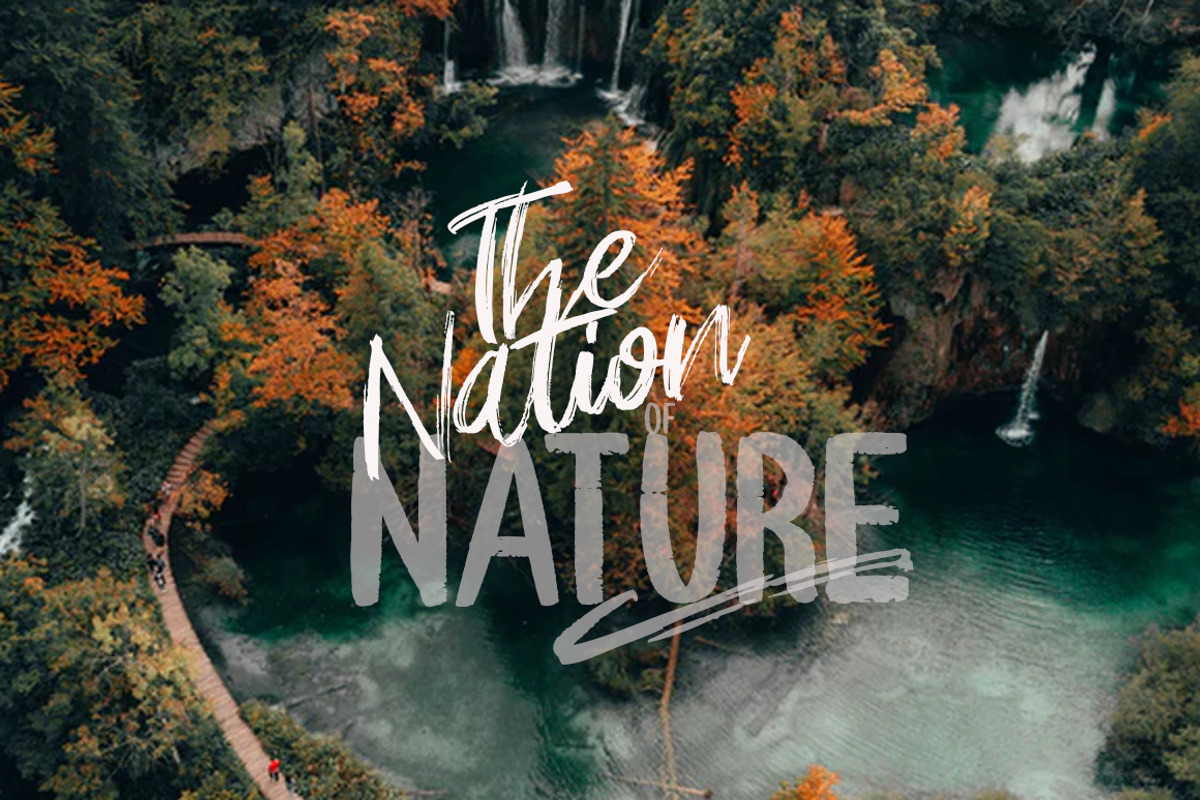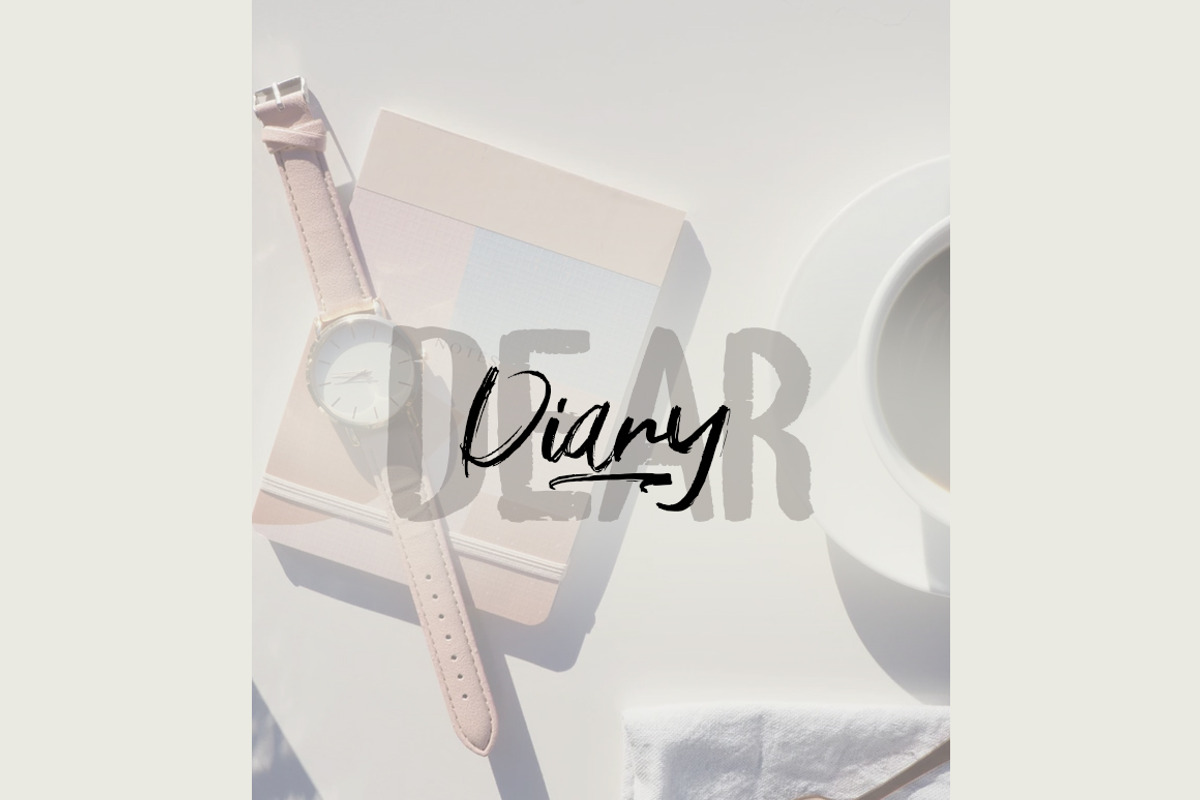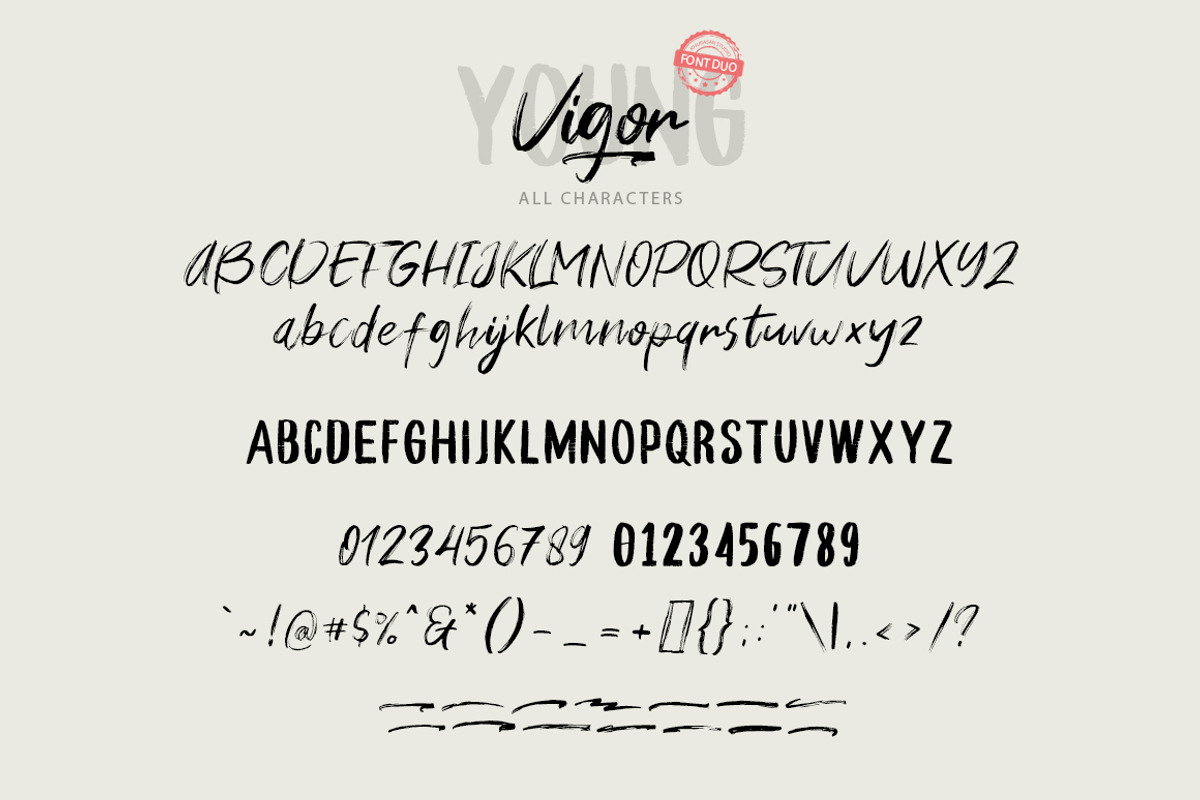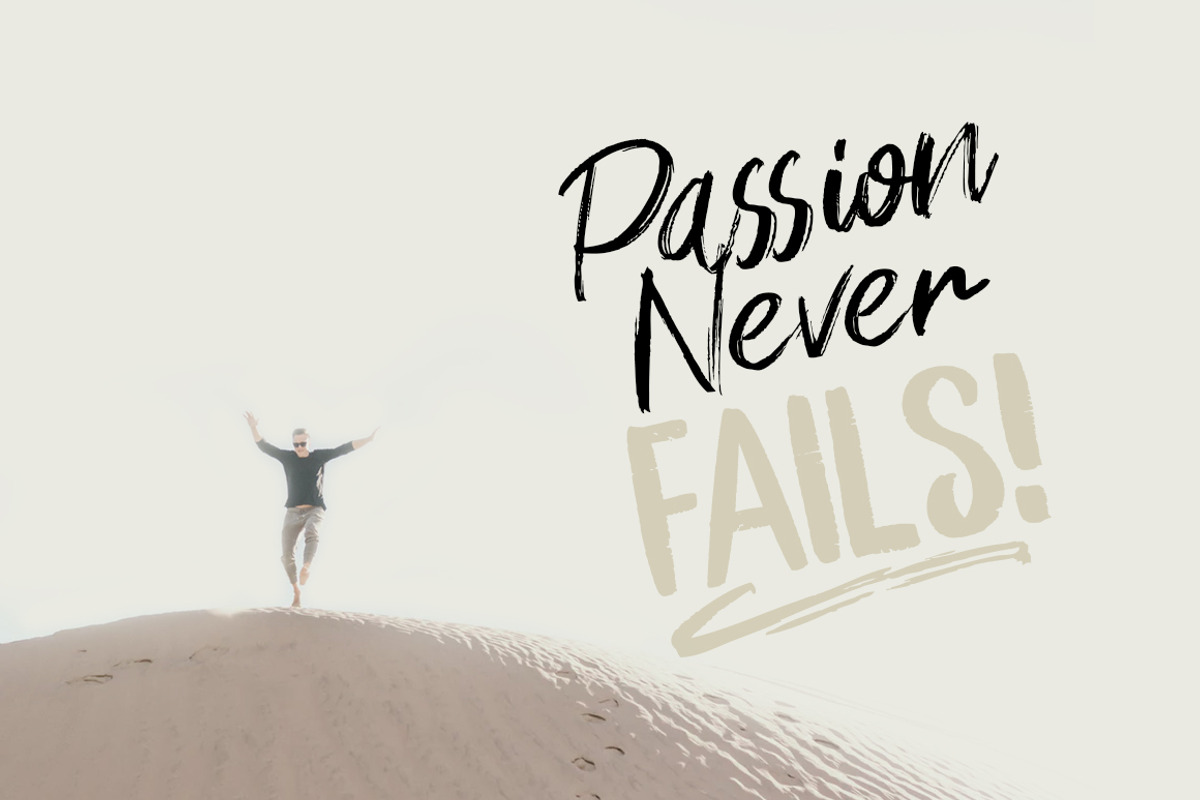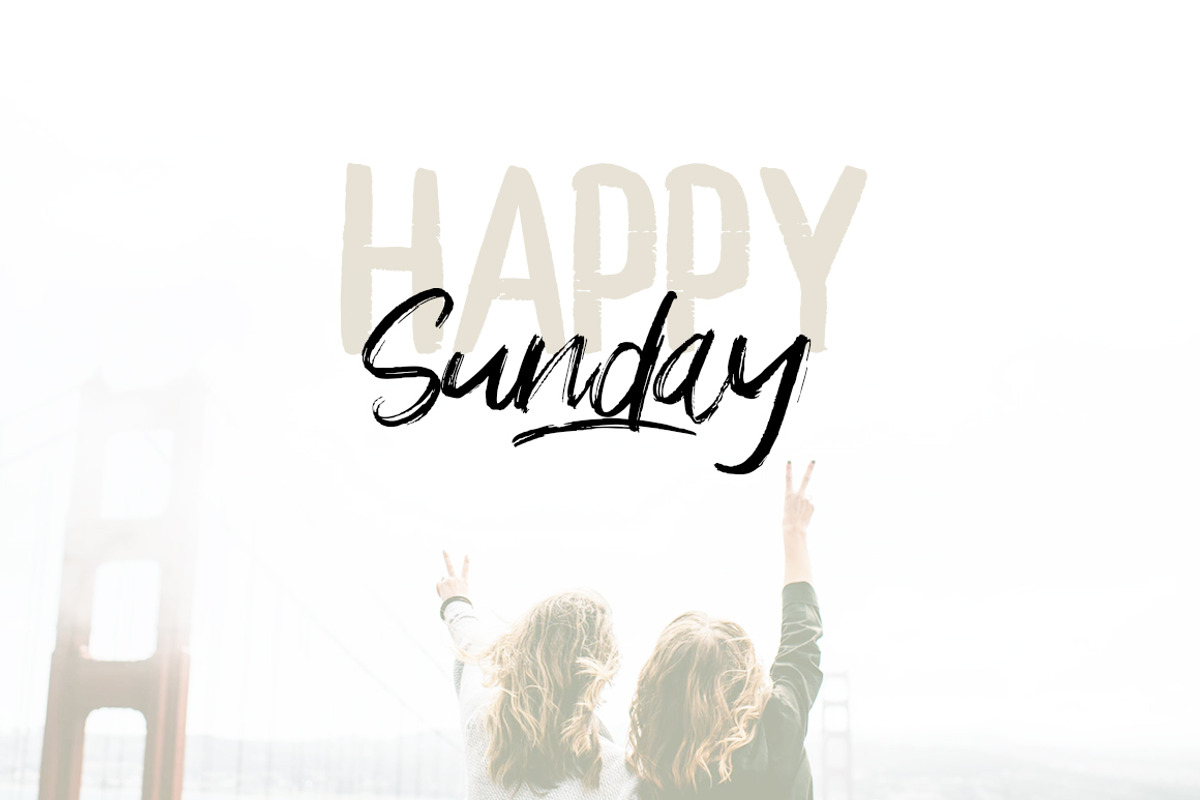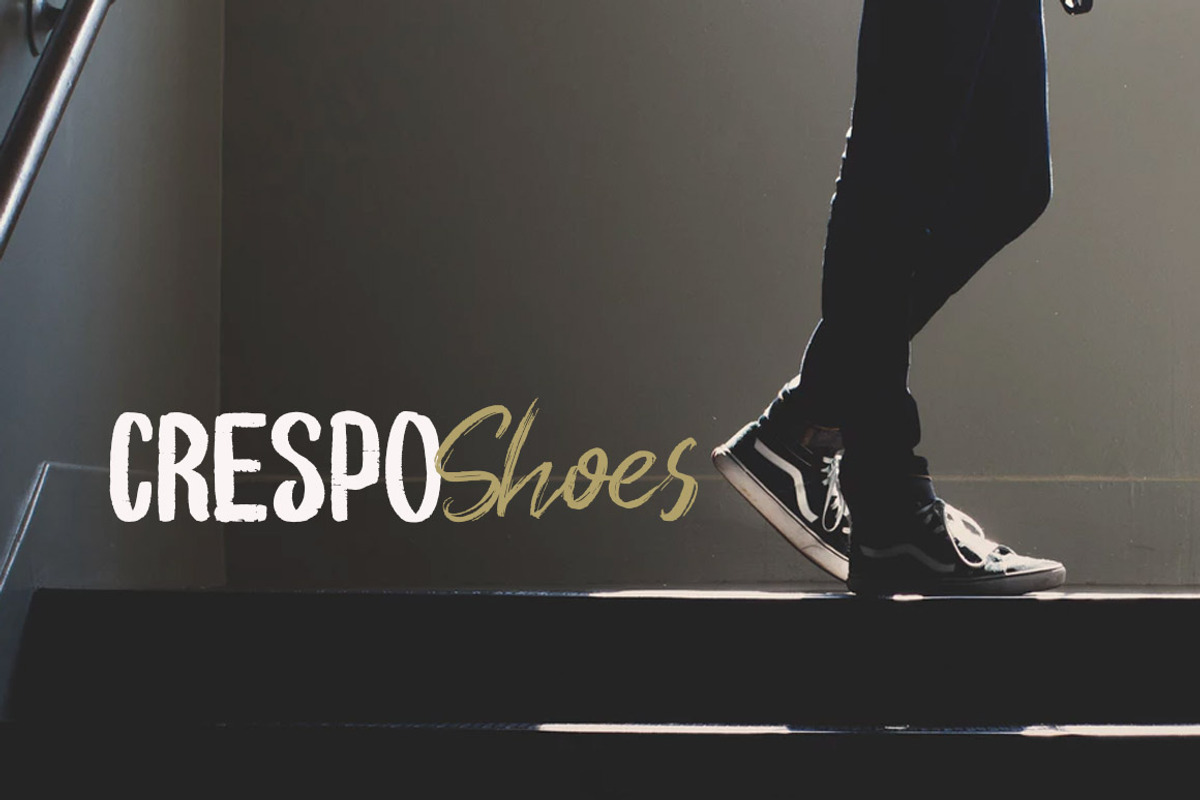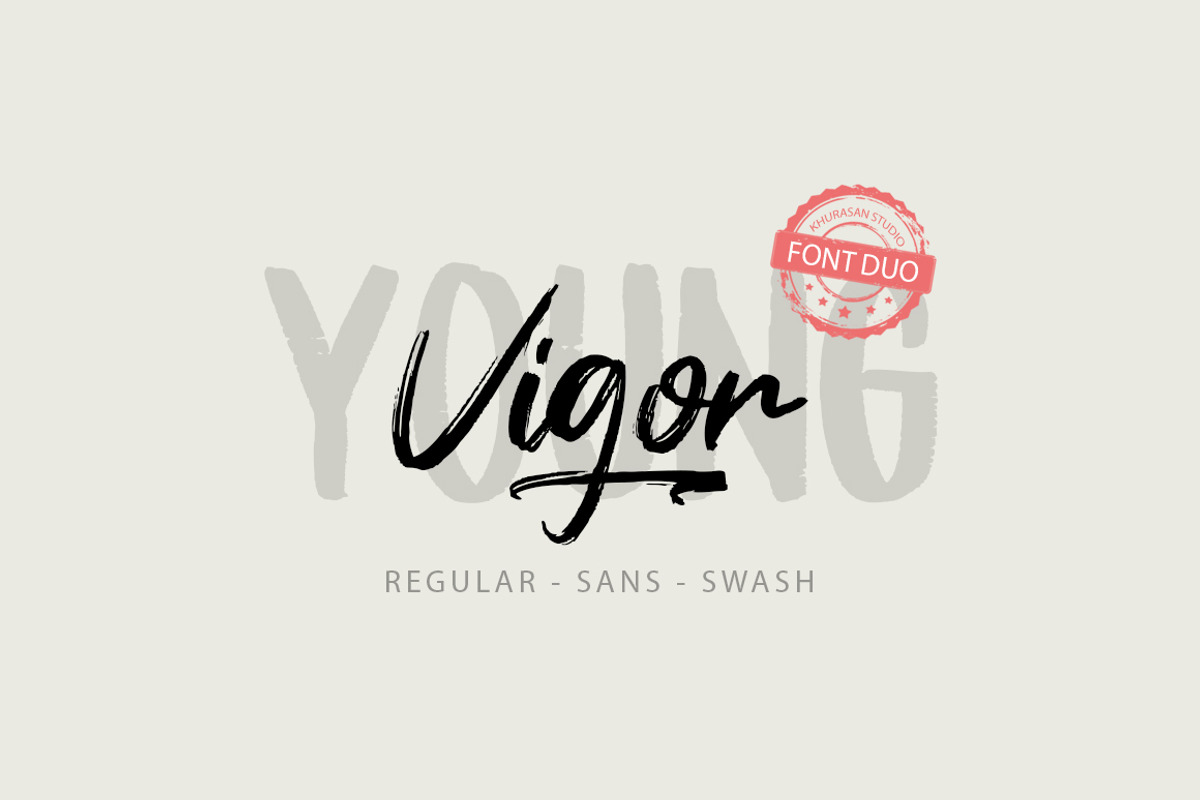
Young Vigor Font Duo
The Young Vigor font is a modern font with two different styles, signature & sans + swash. Young Vigor font it’s perfect for , poster, logo, magazine, cover, banner, tshirt and headers, or even large-scale artwork.